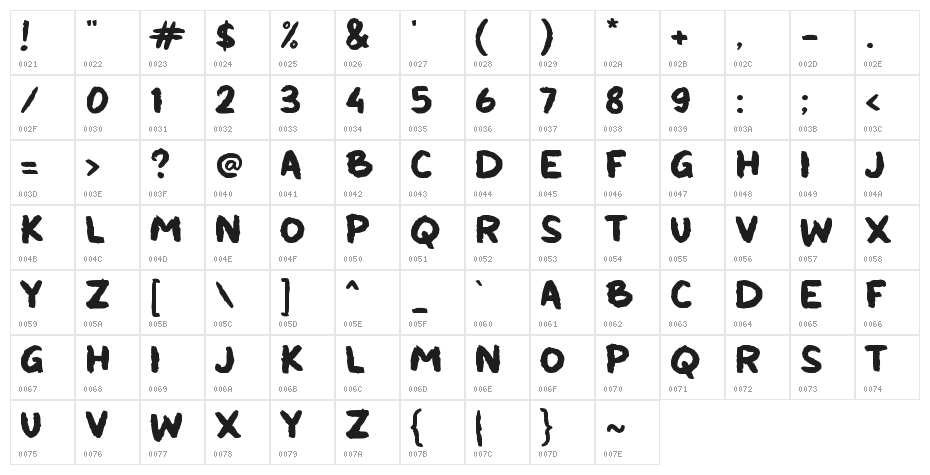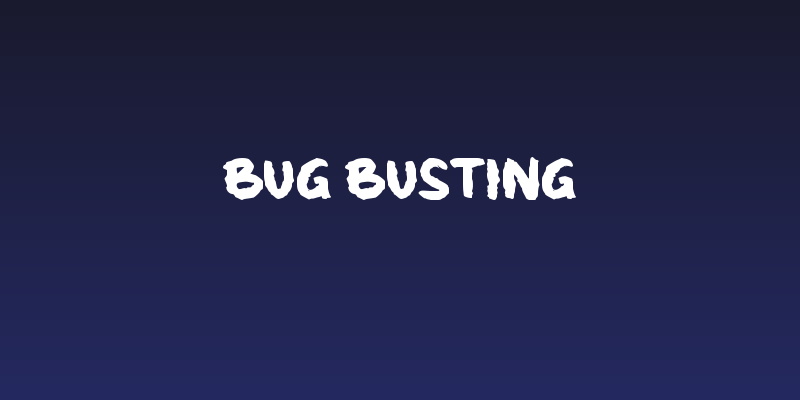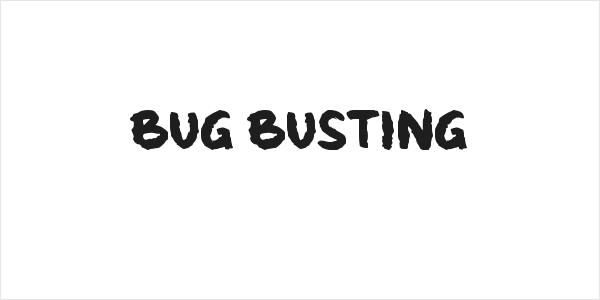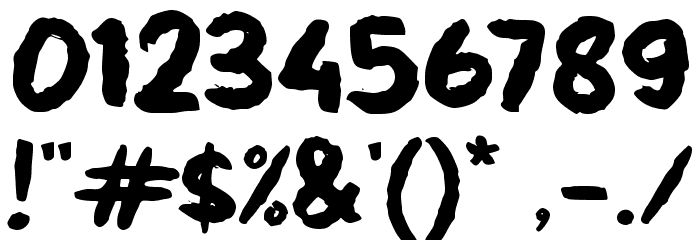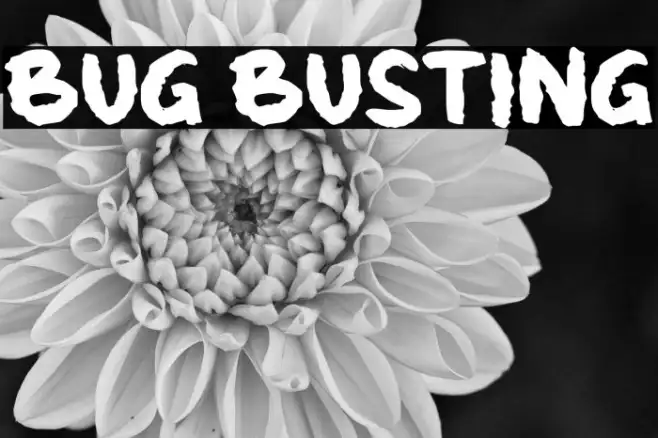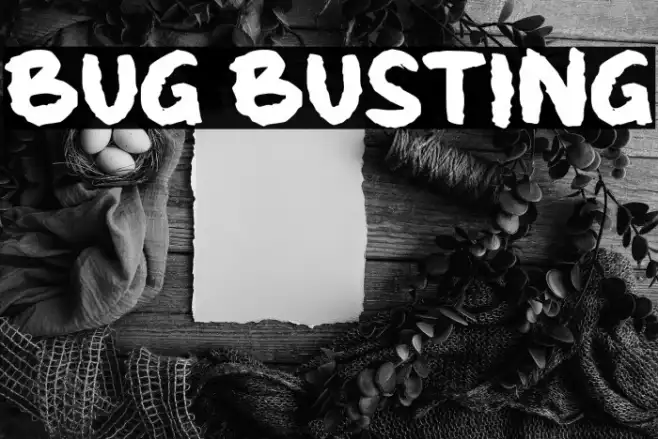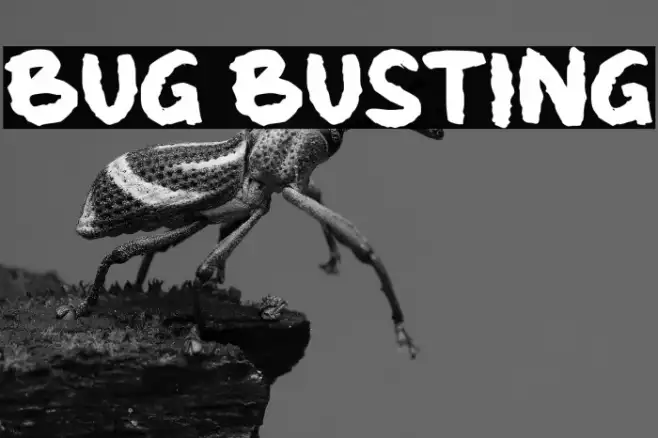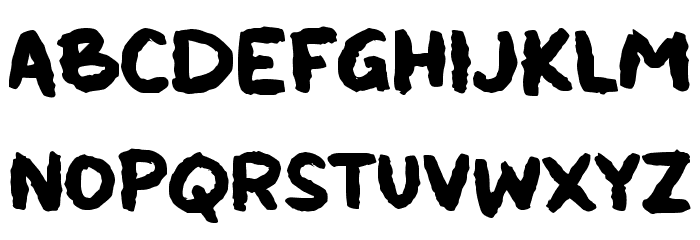
Bug Busting Font
Bug Busting Description
This font exhibits a bold and expressive handwritten style, characterized by thick, uneven strokes that give it a playful and dynamic appearance. The letters are slightly irregular, adding a personal and informal touch. The uppercase and lowercase letters maintain a consistent style, with rounded edges and a sense of movement. Numbers and special characters follow the same design principles, ensuring a cohesive look across all elements. This font is ideal for projects that require a casual, artistic flair, such as posters, invitations, or branding for creative businesses.
| Proposed Projects | Ideal for creative projects like posters, invitations, or branding for artistic ventures. |